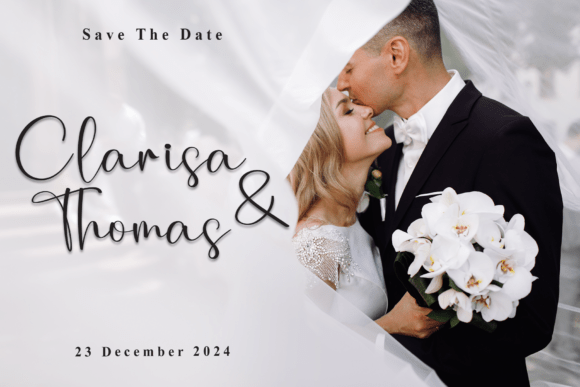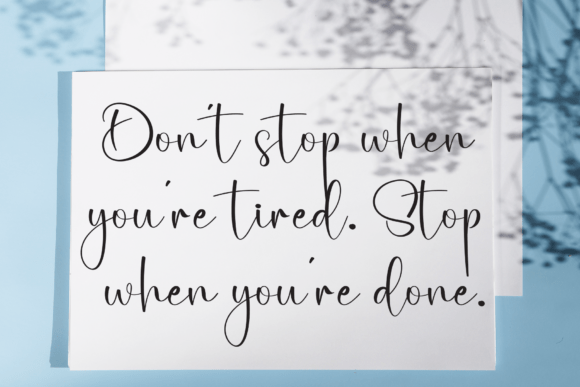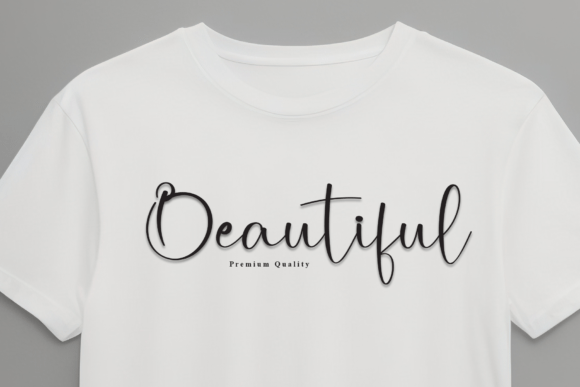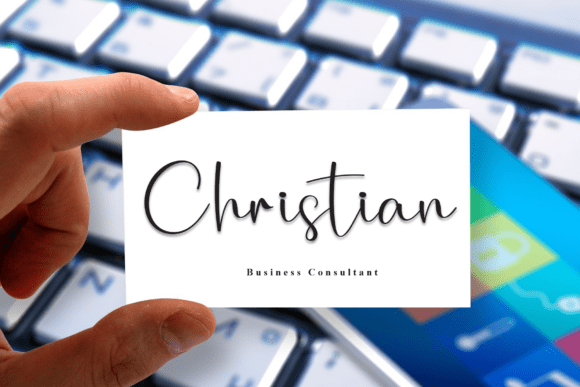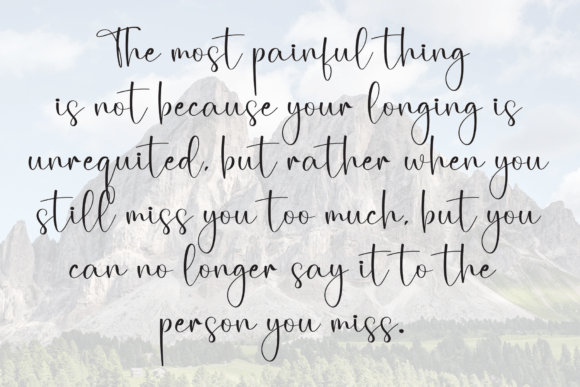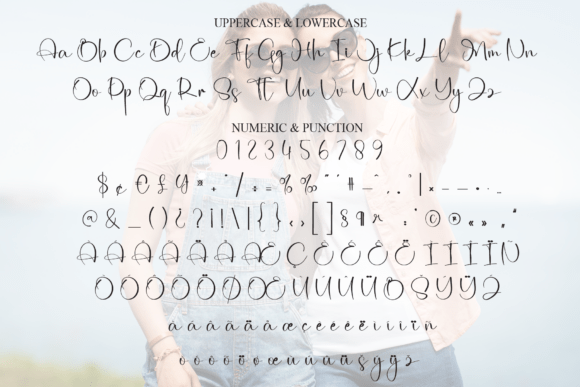
The Perfect Script: Unveiling the Bestie Font
Remember the excitement of creating your first handmade card for a friend or family member? The joy of watching your words come to life on paper, adorned with colorful stickers and scribbles? For designers, that same creative spark can be ignited with the right font – one that adds a personal touch and elevates any design. Enter the Bestie Font, a stylish script handwritten font that brings elegance and sophistication to your projects.
This versatile font is perfect for branding, invitations, logos, and more, making it a valuable addition to any designer’s toolkit. Its natural flow and elegant curves exude warmth and creativity, making it suitable for both formal and casual designs. Whether you’re crafting wedding invitations, greeting cards, or social media posts, the Bestie Font adds a charming touch that’s sure to delight.
Bestie Font Key Features
- Unique Characteristics: Bestie Font features a playful, handwritten style with distinctive letterforms and flourishes, perfect for adding a personal touch to designs.
Bestie Font Review
I recently had the chance to work with the Bestie Font, and I have to say it’s a mixed bag. On the one hand, I love the ✨ playful and cursive feel of the font. It’s perfect for creating a fun and friendly atmosphere, whether it’s for a children’s book, a wedding invitation, or even a social media campaign.
Here are some of the things that I think work well with the Bestie Font:
- ✨ Unique and quirky design: Bestie Font stands out from more traditional fonts with its playful and whimsical feel.
- ✨ Easy to read: Despite its cursive design, Bestie Font is surprisingly easy to read, even for longer blocks of text.
- ✨ Highly customizable: Bestie Font comes with a range of weights and styles, making it easy to adapt to different design needs.
However, I also encountered some limitations:
- ⚠️ Limited legibility at small sizes: While Bestie Font is easy to read at larger sizes, it can become difficult to read at smaller sizes, especially for body text.
- ⚠️ May not be suitable for formal designs: Bestie Font’s playful feel may not be the best fit for more formal or professional designs.
Overall, I think Bestie Font is a great choice for designers who want to add a bit of whimsy and personality to their projects. However, it’s not a one-size-fits-all solution, and designers should be aware of its limitations before using it.
Tips for Getting the Most Out of Bestie Font
For the best results, use Bestie Font in conjunction with bold or italic text to add emphasis and visual interest.
Bestie Font works particularly well in headings and titles, so be sure to use it sparingly to create a clear hierarchy of text.
Bestie Font is ideal for:
- Beauty and wellness packaging
- Home decor and lifestyle design
Alternatives to Bestie Font for Designers
Great Vibes is a beautiful, elegant script font perfect for creating a sophisticated and luxurious feel in your designs. It’s ideal for use in wedding invitations, branding, and packaging. Compared to Bestie Font, Great Vibes has a more refined and classic look, making it suitable for high-end designs.